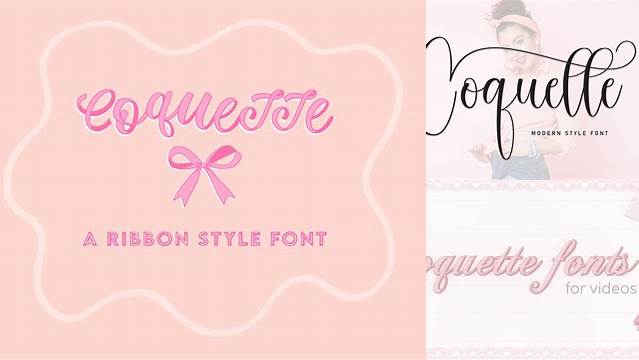
Coquette Fonts With Bows: A Stylish Guide
Hey guys! Ever wondered how to add a touch of girly and whimsical charm to your designs? Well, let's dive into the world of coquette fonts with bows! This style is all about blending elegance with a playful twist, and it’s super trendy right now. Think delicate curves, sweet details, and, of course, adorable bows. Ready to learn how to use them and where to find the best ones? Let's get started!
What are Coquette Fonts?
Before we get into the bows, let's talk about the base: coquette fonts. What exactly are they? Generally speaking, these fonts are characterized by their elegant, feminine, and often slightly romantic appearance. They usually feature smooth curves, stylish serifs, and a generally soft aesthetic. They're the kinds of fonts that make you think of delicate pastries, floral arrangements, and handwritten love letters. When you want to evoke feelings of warmth, charm, and sophistication, coquette fonts are a fantastic choice. These fonts aren’t just about looking pretty; they’re about communicating a certain mood. They often have a vintage feel, reminiscent of classic typography, but with a modern twist that makes them perfect for contemporary designs. Whether you're designing a wedding invitation, a brand logo for a boutique, or just adding a touch of elegance to your personal projects, these fonts can help you achieve a polished and graceful look. The real beauty of coquette fonts lies in their versatility. They can be adapted to suit a wide range of design needs, from formal and traditional to playful and trendy.
The Allure of Adding Bows to Fonts
Now, let's talk about the magic ingredient: bows! Why add bows to fonts? Well, bows instantly elevate a design, adding a layer of sweetness and sophistication. They transform a simple font into something utterly charming and unforgettable. Adding bows to fonts is like putting a cherry on top of an already delicious sundae. It's that extra touch that makes everything feel special. The allure of bows is deeply rooted in their historical and cultural significance. Bows have long been associated with femininity, elegance, and adornment. They evoke feelings of nostalgia, innocence, and grace, making them a perfect complement to coquette fonts. Moreover, bows add a visual focal point that draws the eye and creates a sense of visual interest. They can be used to highlight specific letters or words, adding emphasis and personality to your designs. Whether you opt for simple, minimalist bows or elaborate, decorative ones, the effect is always the same: a touch of whimsy and charm that sets your design apart. Adding bows to fonts isn’t just about aesthetics; it’s about storytelling. It’s about creating a visual narrative that resonates with your audience and leaves a lasting impression.
Finding the Perfect Coquette Font
Okay, so you're sold on the idea of coquette fonts, but where do you find them? The good news is that there are tons of resources available online. Sites like DaFont, Google Fonts, and Creative Market offer a wide selection of fonts in various styles, including coquette-inspired designs. When searching for the perfect font, consider the overall aesthetic you're going for. Are you looking for something classic and elegant? Or something more playful and modern? Use keywords like "feminine font," "romantic font," or "decorative font" to narrow down your search. Don't be afraid to experiment with different options until you find the perfect fit. The key is to find a font that not only looks beautiful but also aligns with your brand or project. Remember to check the licensing terms of the fonts you download, especially if you plan to use them for commercial purposes. Many fonts are free for personal use but require a commercial license for business projects. Also, pay attention to the font's readability and legibility, especially if you're using it for body text. A beautiful font is only effective if it's easy to read and understand. Finding the perfect coquette font is a journey of discovery, so enjoy the process and let your creativity guide you.
Adding Bows: DIY vs. Pre-made Fonts
Now, for the bows! You have two main options: either add them yourself using design software, or find pre-made fonts that already include bow embellishments. Both approaches have their pros and cons. Adding bows yourself gives you complete creative control over the size, shape, and placement of the bows. This can be a great option if you have specific ideas in mind or want to create a truly unique design. However, it requires some design skills and can be time-consuming. On the other hand, pre-made fonts with bows are convenient and easy to use. They come ready-made with perfectly crafted bows that complement the font's design. This is a great option if you're short on time or don't have a lot of design experience. However, you'll have less flexibility in terms of customization. Ultimately, the best approach depends on your skill level, time constraints, and creative vision. If you're a confident designer with a clear idea of what you want, adding bows yourself might be the way to go. But if you're looking for a quick and easy solution, pre-made fonts can be a lifesaver. No matter which approach you choose, remember to have fun and let your creativity shine!
Software for Adding Bows Manually
If you're going the DIY route, you'll need some design software to add bows to your fonts. Adobe Illustrator and Adobe Photoshop are popular choices, as they offer a wide range of tools and features for creating custom graphics. Canva is another great option, especially for beginners. It's user-friendly and offers a variety of pre-designed bow graphics that you can easily incorporate into your designs. When adding bows manually, start by selecting a font that you like. Then, create or import a bow graphic into your design software. Position the bow strategically on the font, paying attention to the overall balance and composition. Experiment with different sizes, shapes, and angles until you achieve the desired effect. You can also add shadows, highlights, and other effects to make the bows look more realistic and dimensional. Remember to save your work frequently and create backups in case something goes wrong. With a little practice and experimentation, you'll be able to add bows to your fonts like a pro!
Free vs. Premium Coquette Fonts with Bows
Using Coquette Fonts with Bows for Logos
Imagine a logo that whispers elegance and charm, all thanks to a coquette font with bows. Using these fonts for logos can create a memorable and distinctive brand identity, especially for businesses targeting a feminine audience. Think boutiques, bakeries, beauty salons, and event planners. The key is to choose a font that reflects your brand's personality and values. A delicate, script-style font with subtle bows can convey sophistication and grace, while a bolder font with more prominent bows can add a playful and youthful touch. When designing a logo with coquette fonts, pay attention to the overall composition and readability. The font should be legible even at small sizes, and the bows should complement the letters without overpowering them. Consider using a simplified version of the font for smaller applications, such as favicons or business cards. Also, make sure that the font and bows are consistent with your brand's color palette and visual style. A well-designed logo with coquette fonts can help you stand out from the competition and attract your target audience. It's a subtle yet powerful way to communicate your brand's unique personality and create a lasting impression.
Coquette Fonts with Bows for Invitations
Planning a wedding, bridal shower, or baby shower? Coquette fonts with bows are the perfect choice for creating elegant and enchanting invitations. These fonts add a touch of romance and sophistication to any event, setting the tone for a memorable celebration. When designing invitations, choose a font that complements the overall theme and style of the event. A classic, script-style font with delicate bows is ideal for traditional weddings, while a more modern font with playful bows is perfect for casual gatherings. Pay attention to the layout and spacing of the text, ensuring that the information is clear and easy to read. Use a contrasting color for the font to make it stand out against the background. You can also add other embellishments, such as floral illustrations, ribbons, or lace, to enhance the overall design. Don't forget to proofread the invitation carefully before printing to catch any errors. With coquette fonts, your invitations will not only inform your guests but also leave them excited and anticipating the event. They're a beautiful way to set the stage for a special occasion and create a lasting impression.
Best Occasions to Use These Fonts
So, when are coquette fonts with bows the perfect choice? Well, think of any occasion that calls for a touch of sweetness, elegance, or femininity. Weddings, bridal showers, baby showers, and birthday parties are all great candidates. These fonts are also ideal for branding and marketing materials for businesses targeting a female audience, such as boutiques, bakeries, beauty salons, and event planners. But don't limit yourself to just these occasions! Coquette fonts with bows can also be used for personal projects, such as creating greeting cards, journal entries, or social media graphics. The key is to use them in moderation and in contexts where their delicate and charming aesthetic is appropriate. Avoid using them for serious or formal occasions, such as legal documents or business reports, as they may come across as unprofessional or inappropriate. When in doubt, consider the overall tone and message you're trying to convey and choose a font that aligns with it. With a little creativity and good judgment, you can find countless opportunities to use coquette fonts with bows to add a touch of magic to your designs.
Monetizing Your Font Designs
So, you've created some killer coquette font designs and you're ready to make some money, huh? Awesome! There are several ways to monetize your font designs, from selling them online to offering custom design services. One of the most popular options is to sell your fonts on online marketplaces like Creative Market, Fontspring, or MyFonts. These platforms provide you with a ready-made audience and handle the marketing and sales process for you. You'll need to create high-quality font files, write compelling descriptions, and set competitive prices. Another option is to sell your fonts directly from your own website or online store. This gives you more control over the branding and pricing, but it also requires you to handle the marketing and sales yourself. You can also offer custom font design services to clients who need a unique and personalized font for their brand or project. This can be a lucrative option, but it requires you to have strong design skills and the ability to work closely with clients. Make sure you protect your font designs with appropriate licensing agreements to prevent unauthorized use or distribution. Consider using a service like Creative Commons or SIL Open Font License. Promote your font designs on social media, design blogs, and online forums to reach a wider audience. With hard work, dedication, and a little bit of luck, you can turn your passion for coquette font design into a successful business!